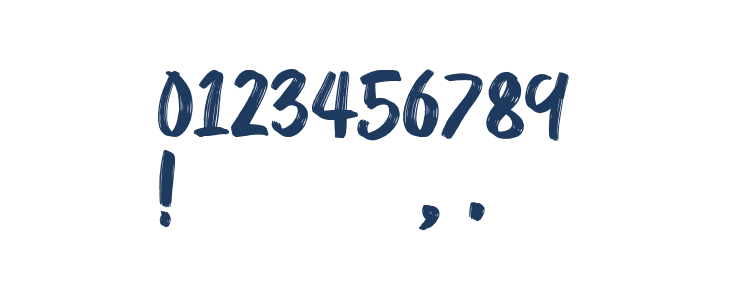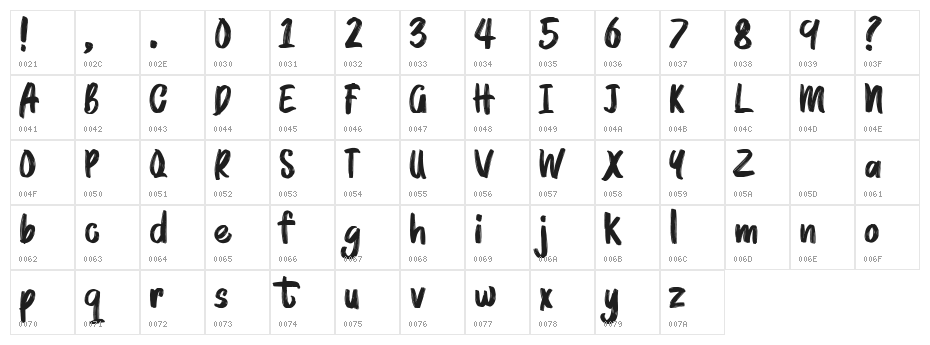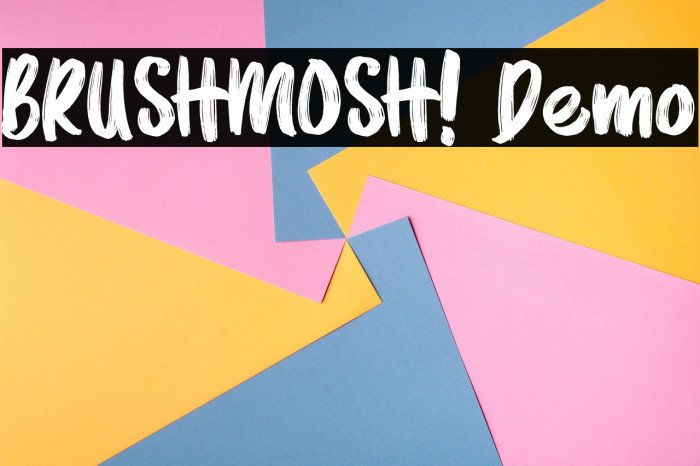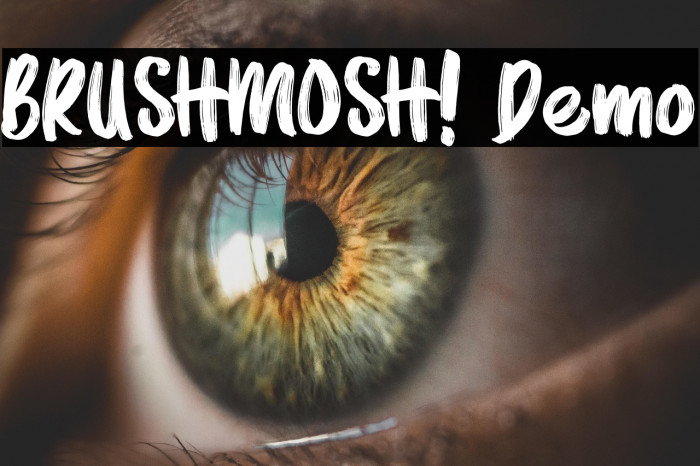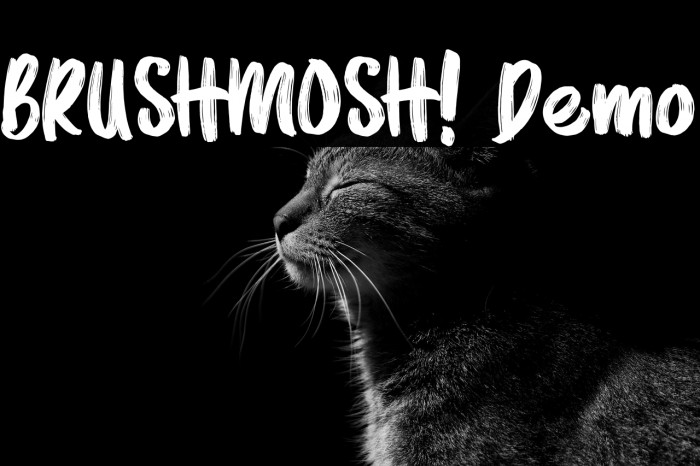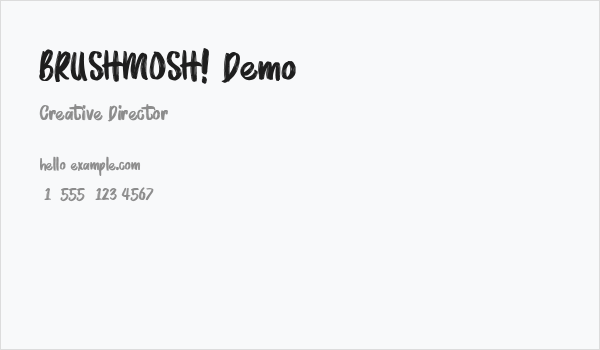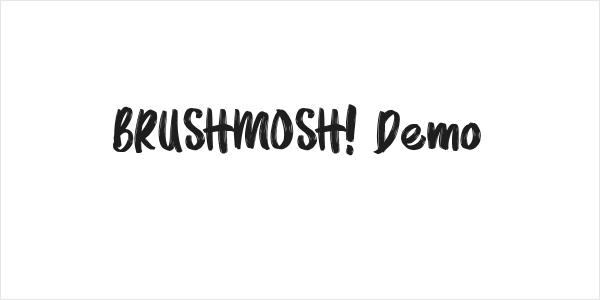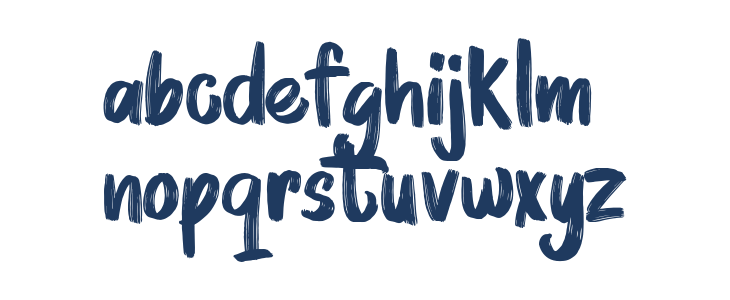
BRUSHMOSH! Demo Font
BRUSHMOSH! Demo Description
This font exudes a bold and expressive style, characterized by its brush-like strokes that convey a sense of dynamism and energy. The letters are crafted with a hand-painted appearance, giving each character a unique and artistic flair. The uppercase and lowercase letters maintain a consistent style, with thick strokes and slightly irregular edges that enhance the handcrafted feel. The numerals and special characters follow the same aesthetic, ensuring a cohesive look across all glyphs. This font's bold presence makes it ideal for creative projects that require a touch of personality and flair.